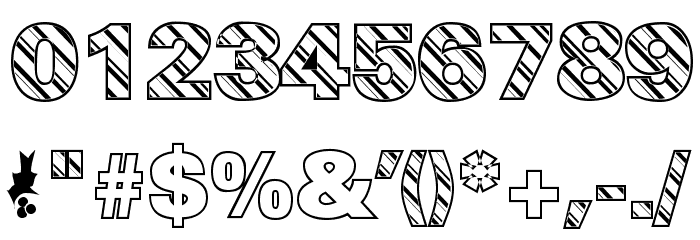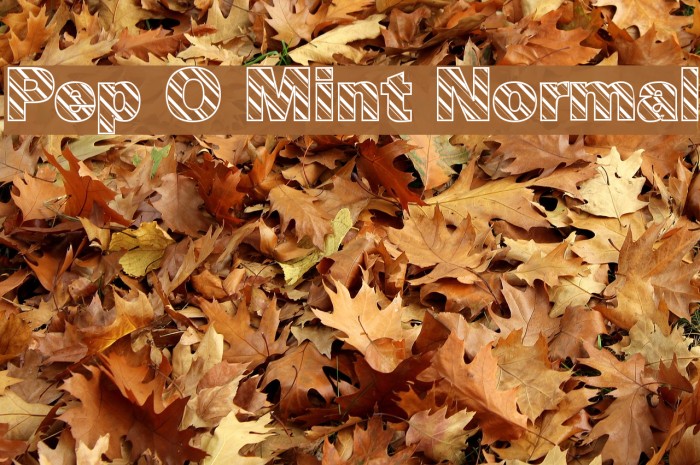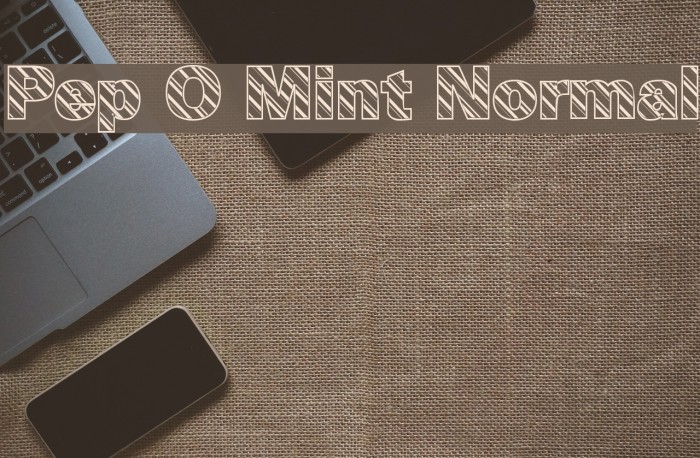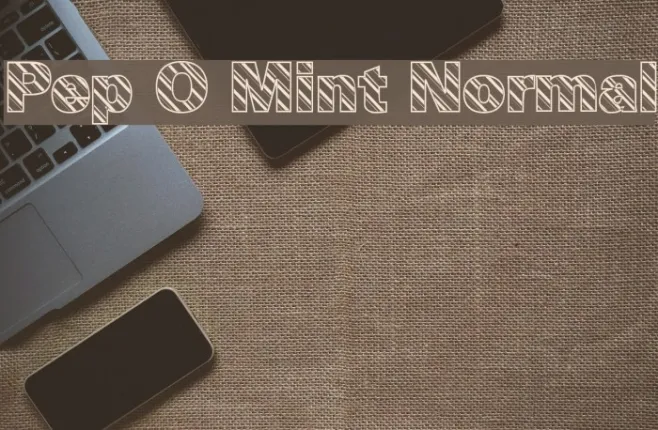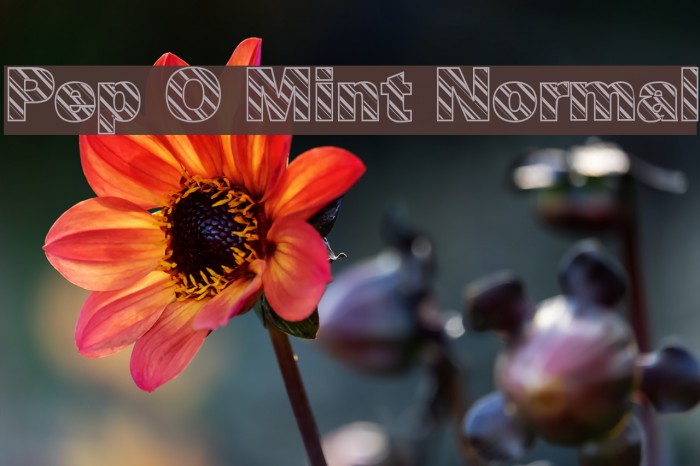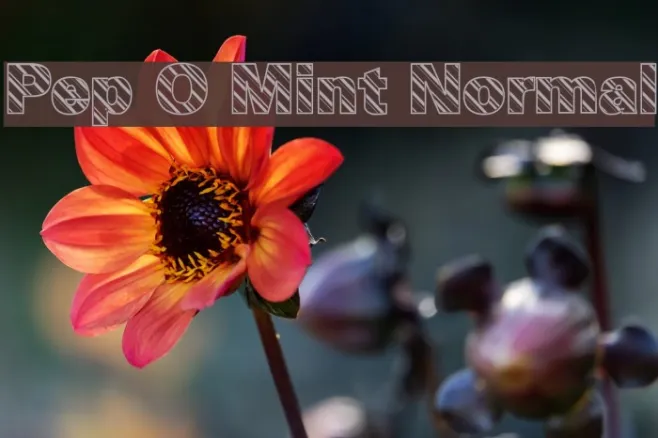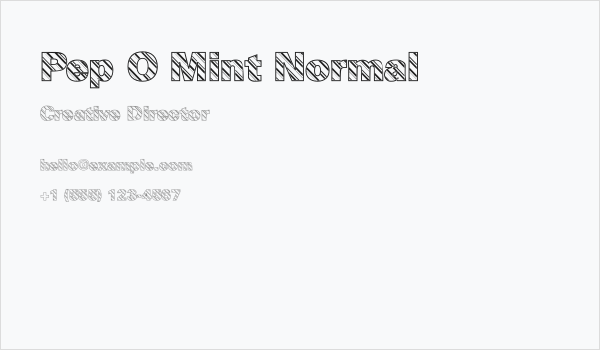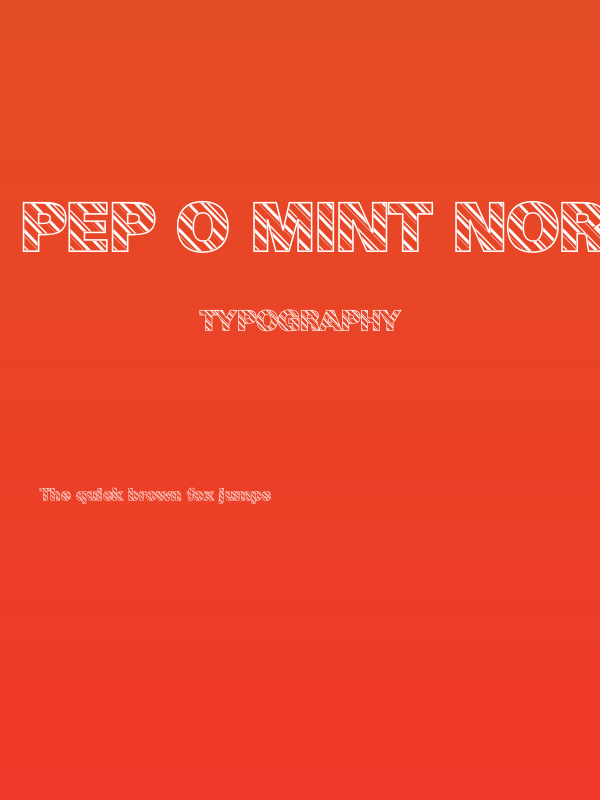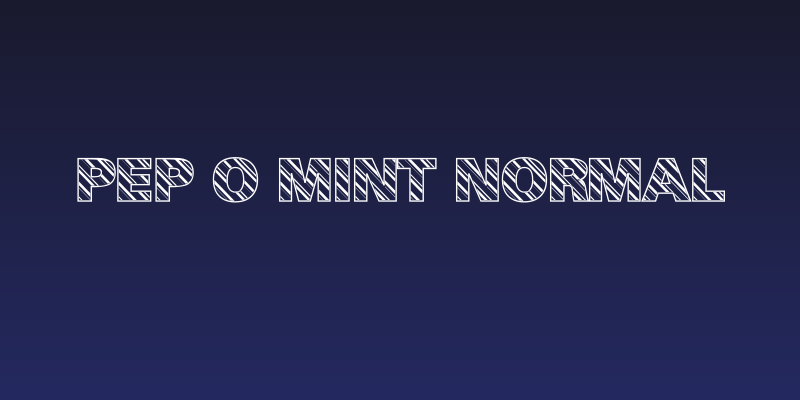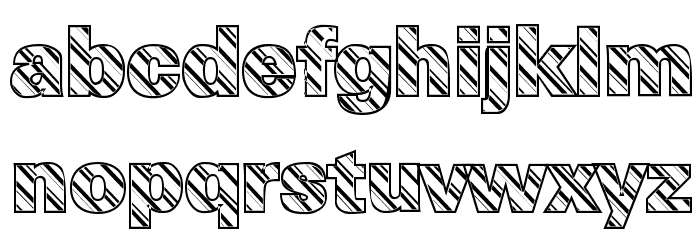
Pep O Mint Normal Font
Pep O Mint Normal Description
This font features a bold, decorative style with a unique striped pattern filling each character. The letters are uppercase and lowercase, with numerals and a variety of special characters. The design is playful and eye-catching, making it ideal for creative projects. The font has a modern, geometric feel with clean lines and a consistent pattern throughout. The characters are well-defined, with a uniform width and a slightly condensed appearance. The striped pattern adds a dynamic element, creating a sense of movement and energy.